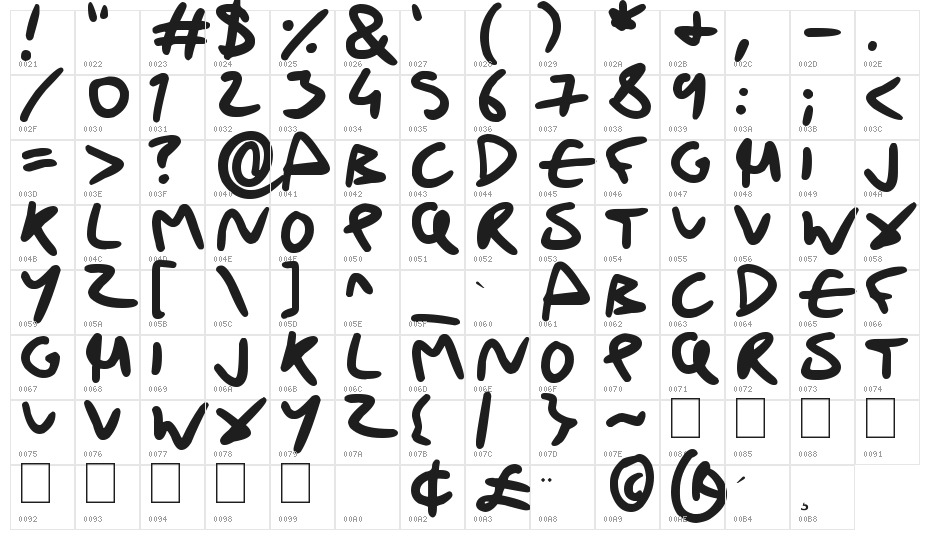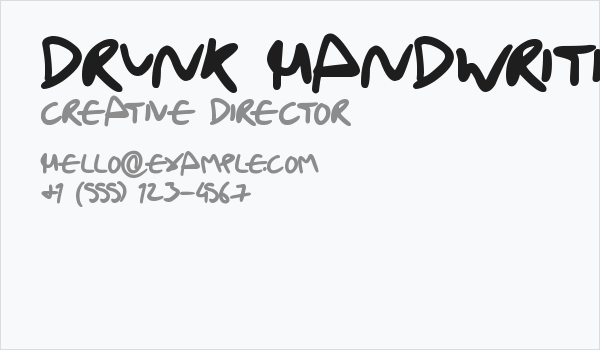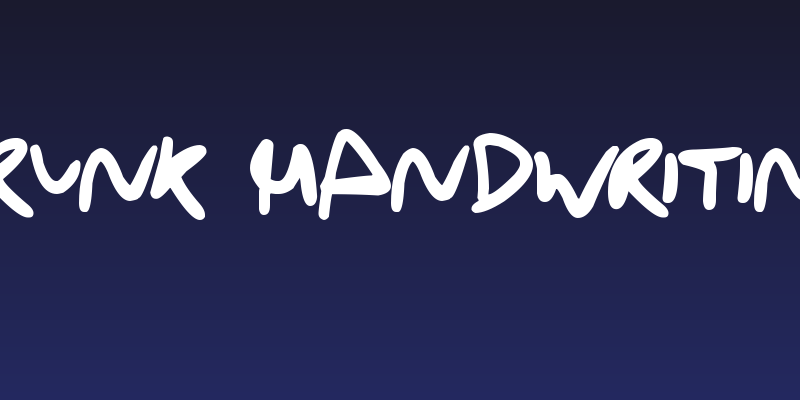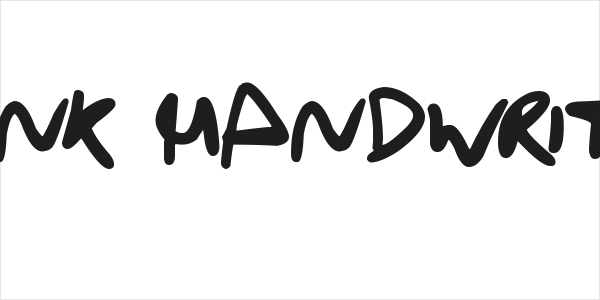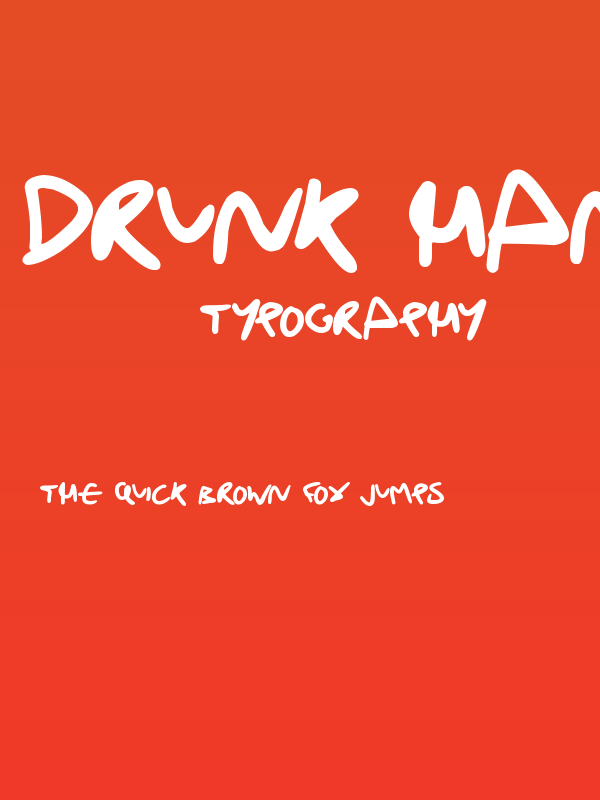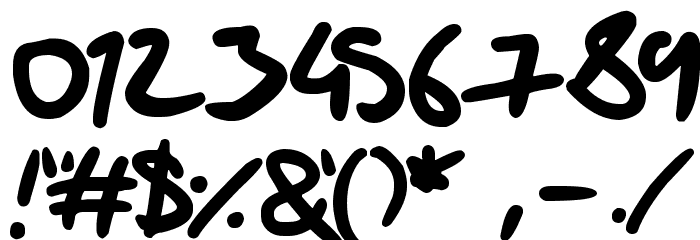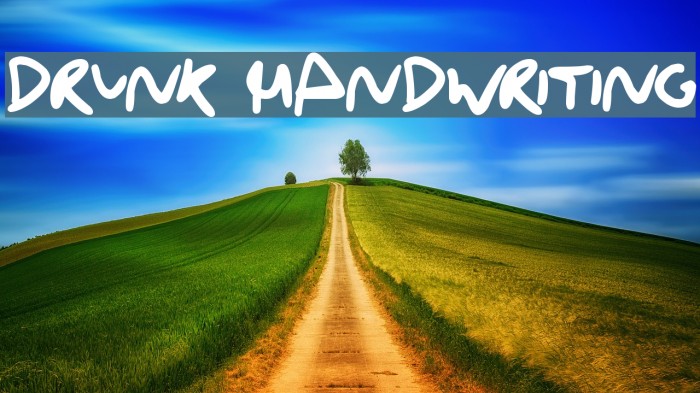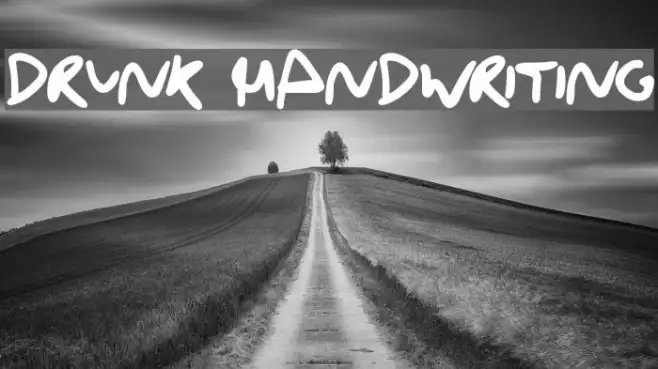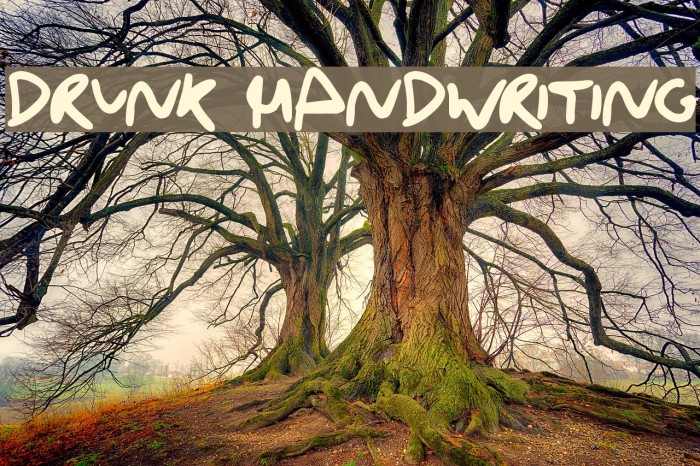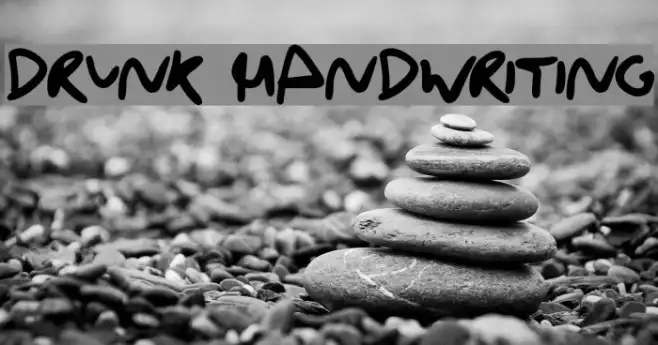
Drunk Handwriting Font
Drunk Handwriting Description
This font exudes a playful and informal vibe, characterized by its uneven, wavy lines that mimic the appearance of handwriting under the influence. The strokes are bold and thick, giving it a strong presence while maintaining a casual, carefree aesthetic. The letters are slightly slanted, adding to the whimsical nature of the design. Each character is distinct, with exaggerated curves and loops that enhance its quirky personality. The numbers and special characters follow the same style, ensuring consistency throughout. This font is perfect for projects that require a touch of humor and creativity.
| Proposed Projects | Ideal for comic strips, playful branding, party invitations, and creative posters. |